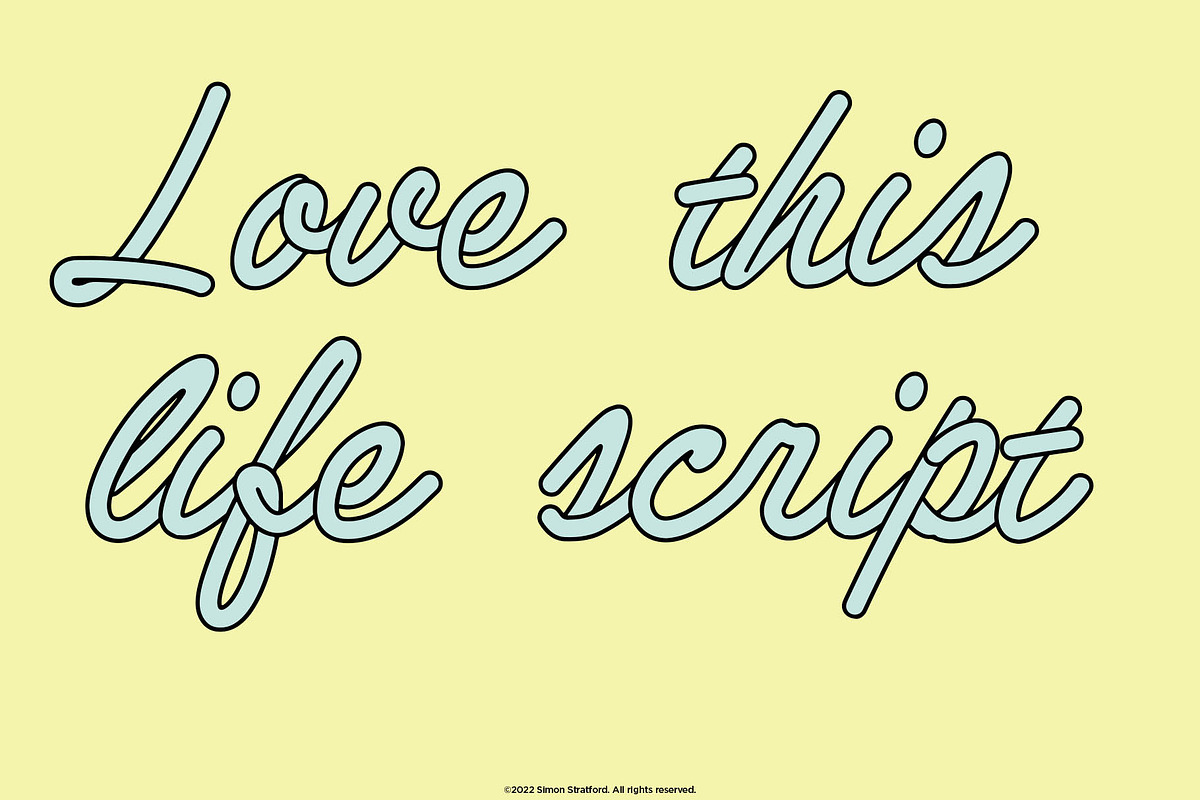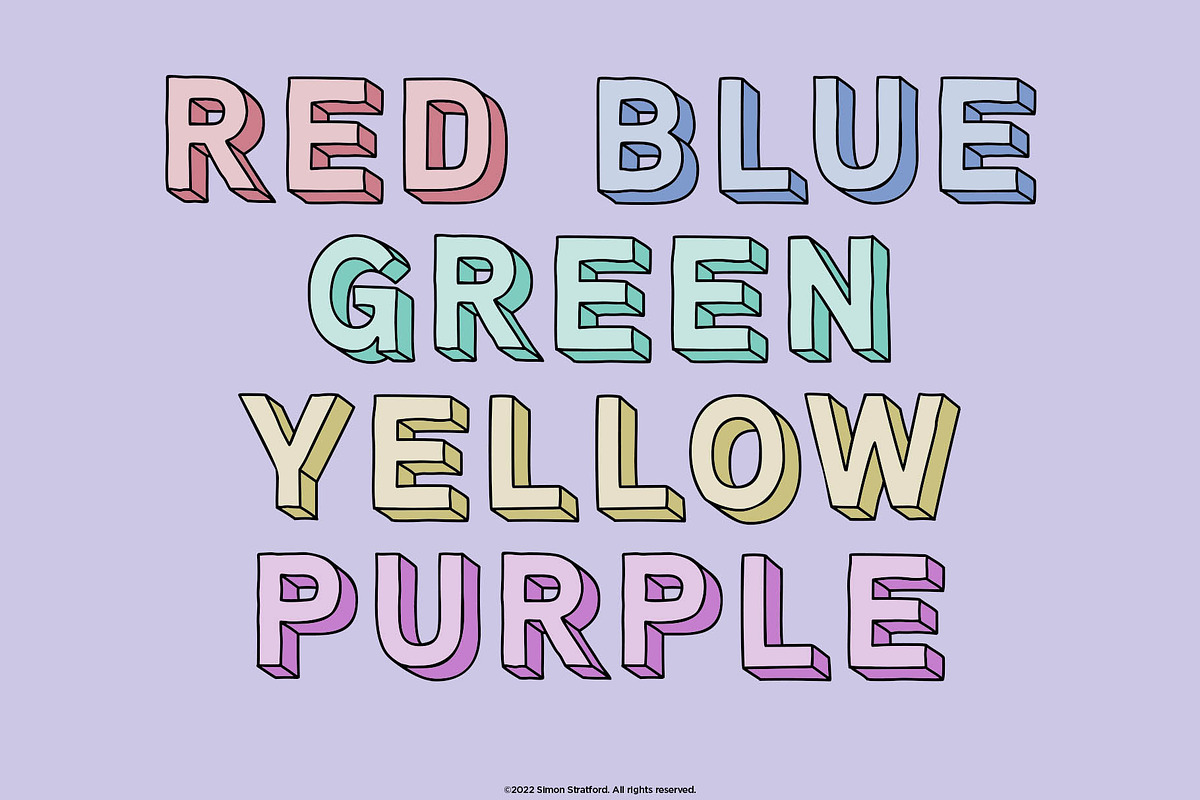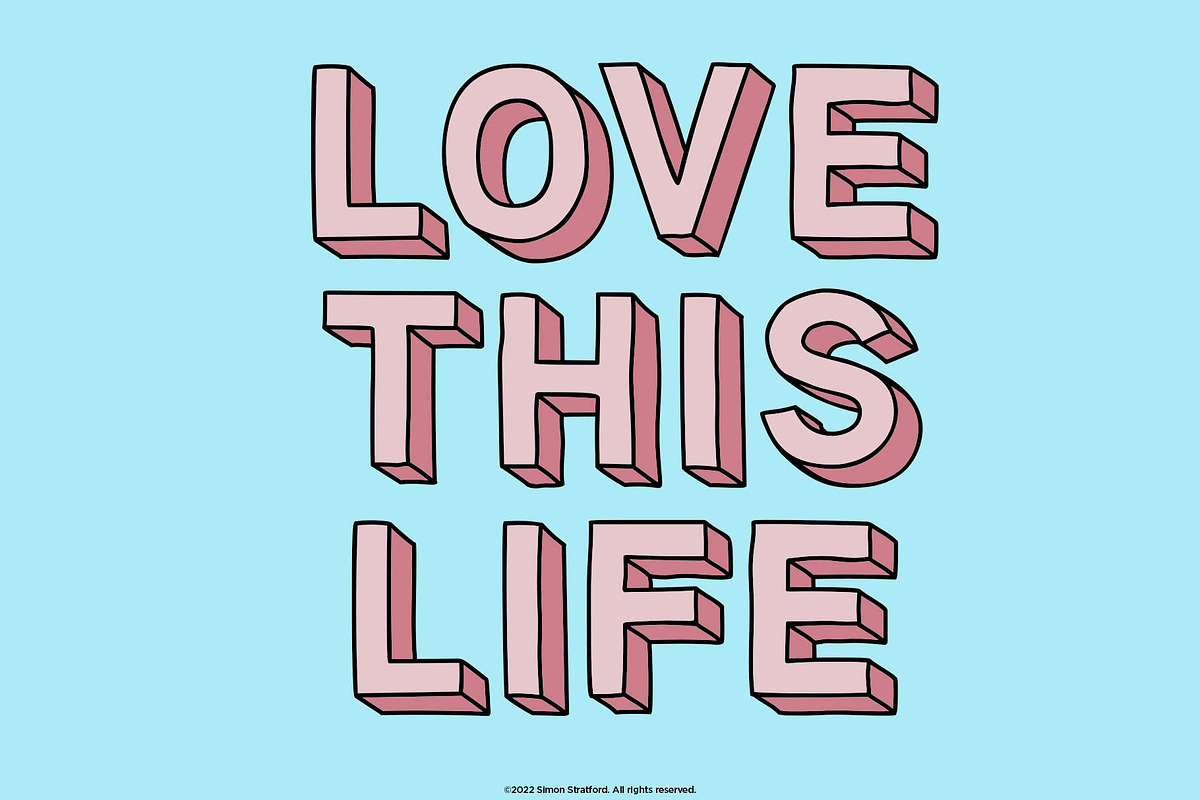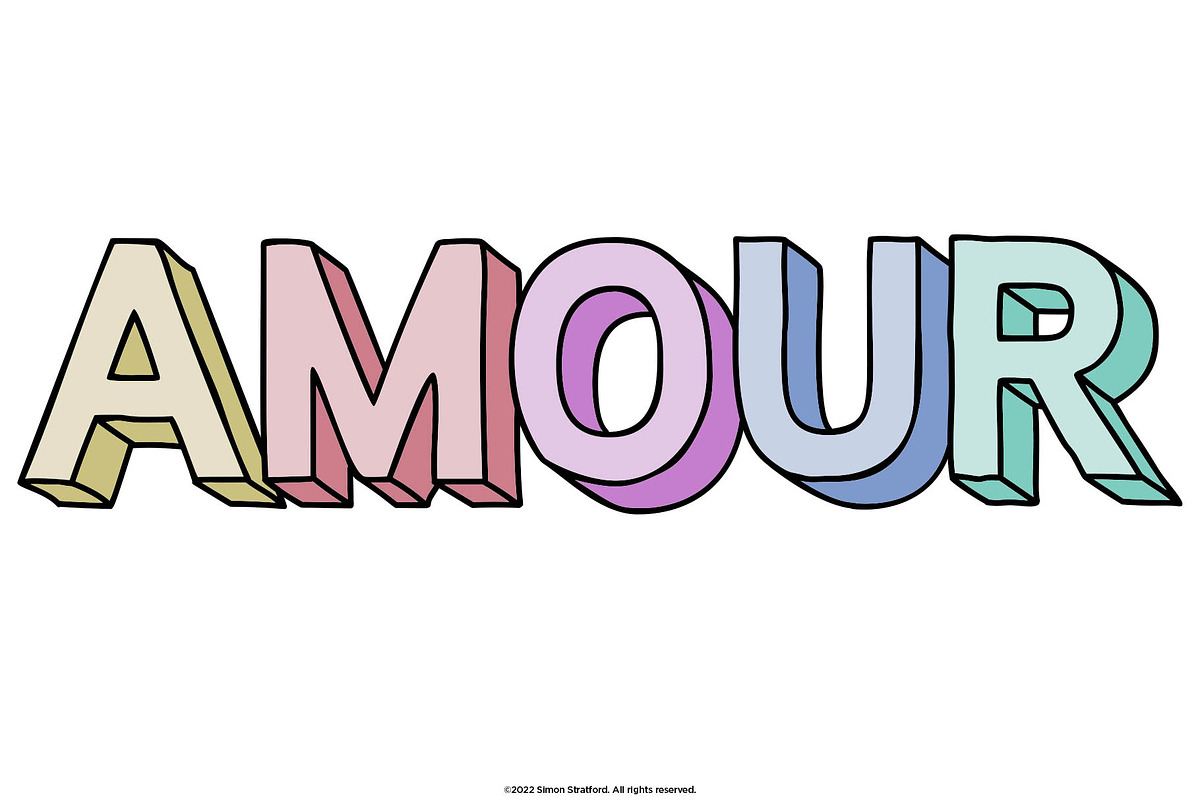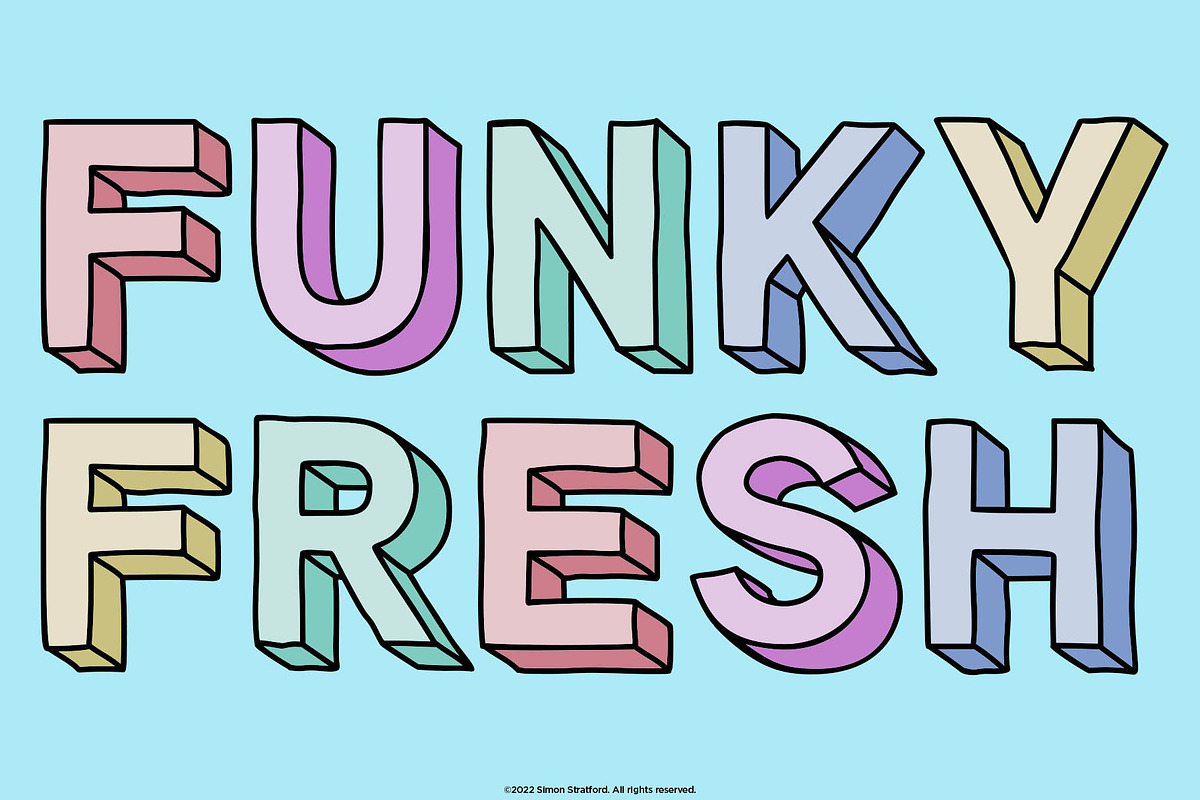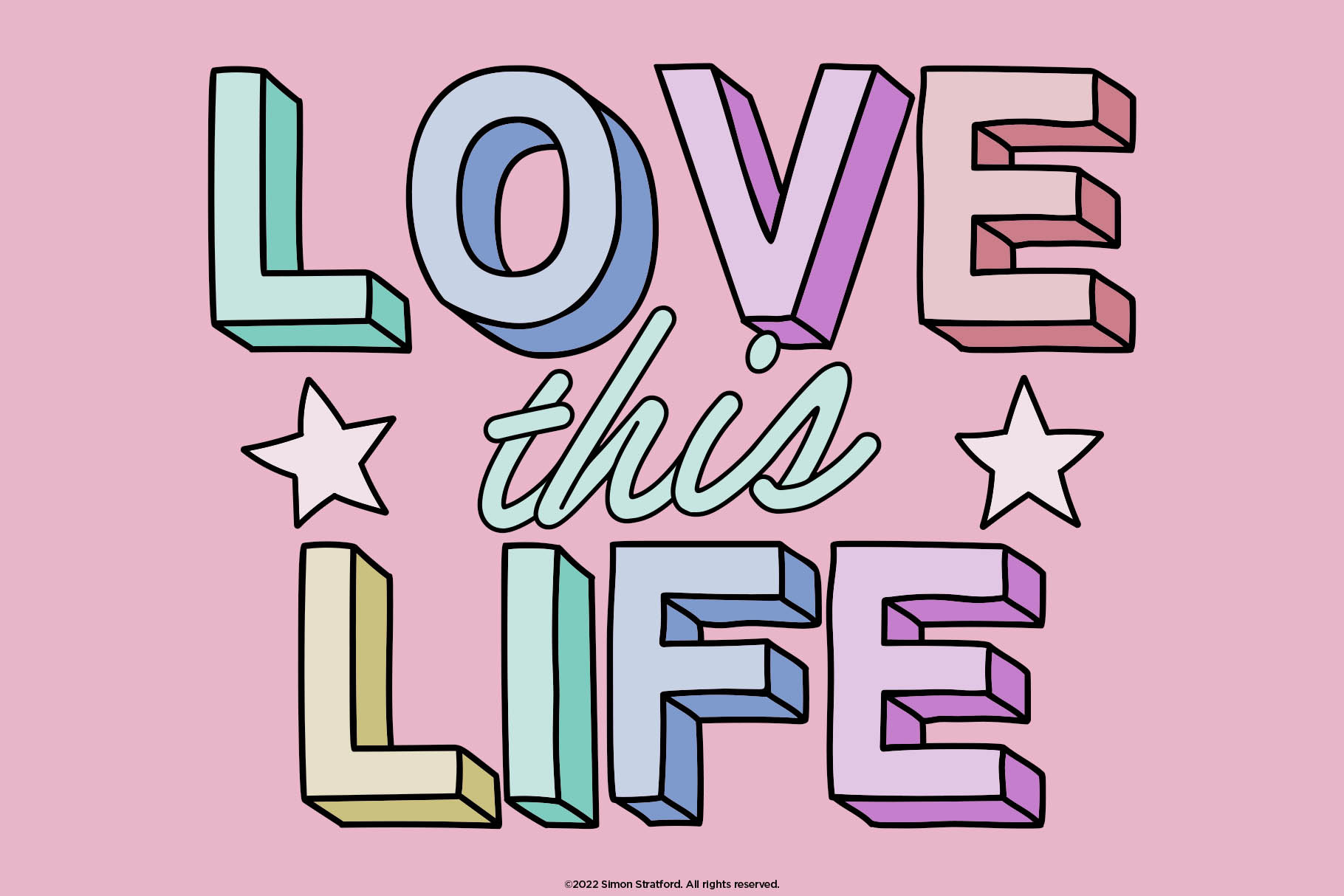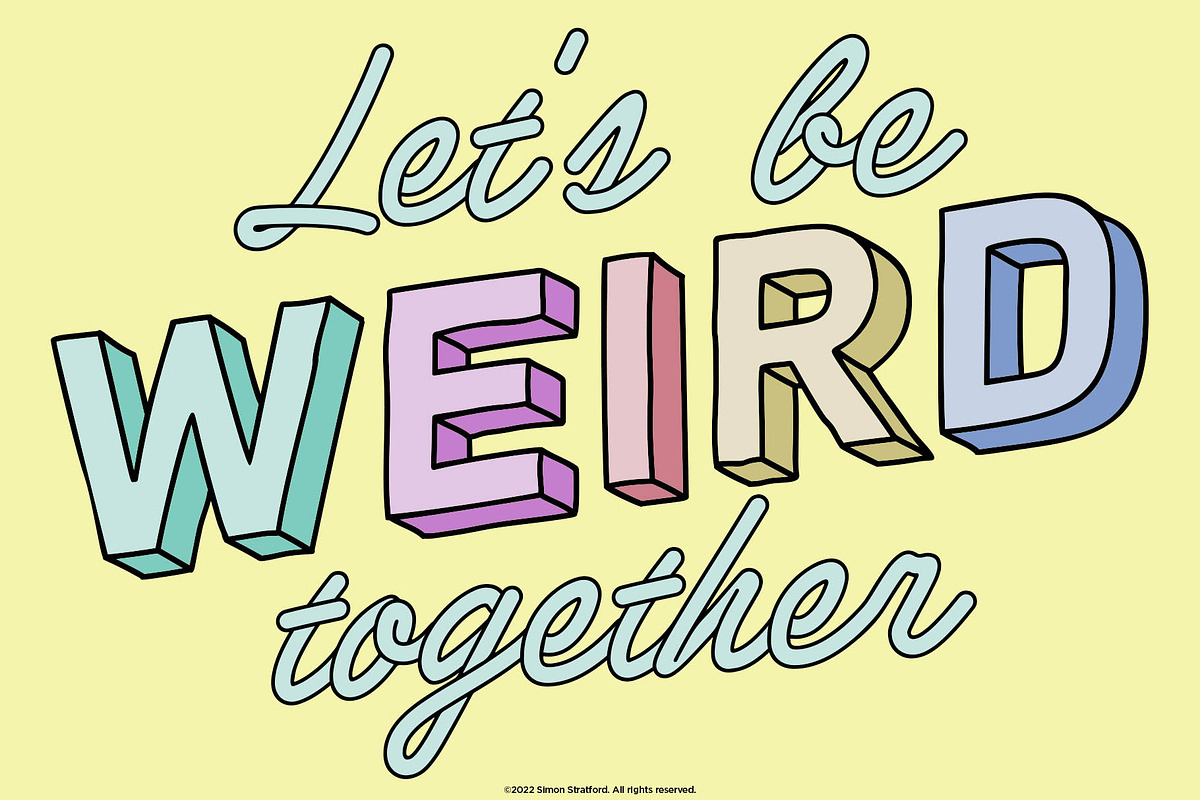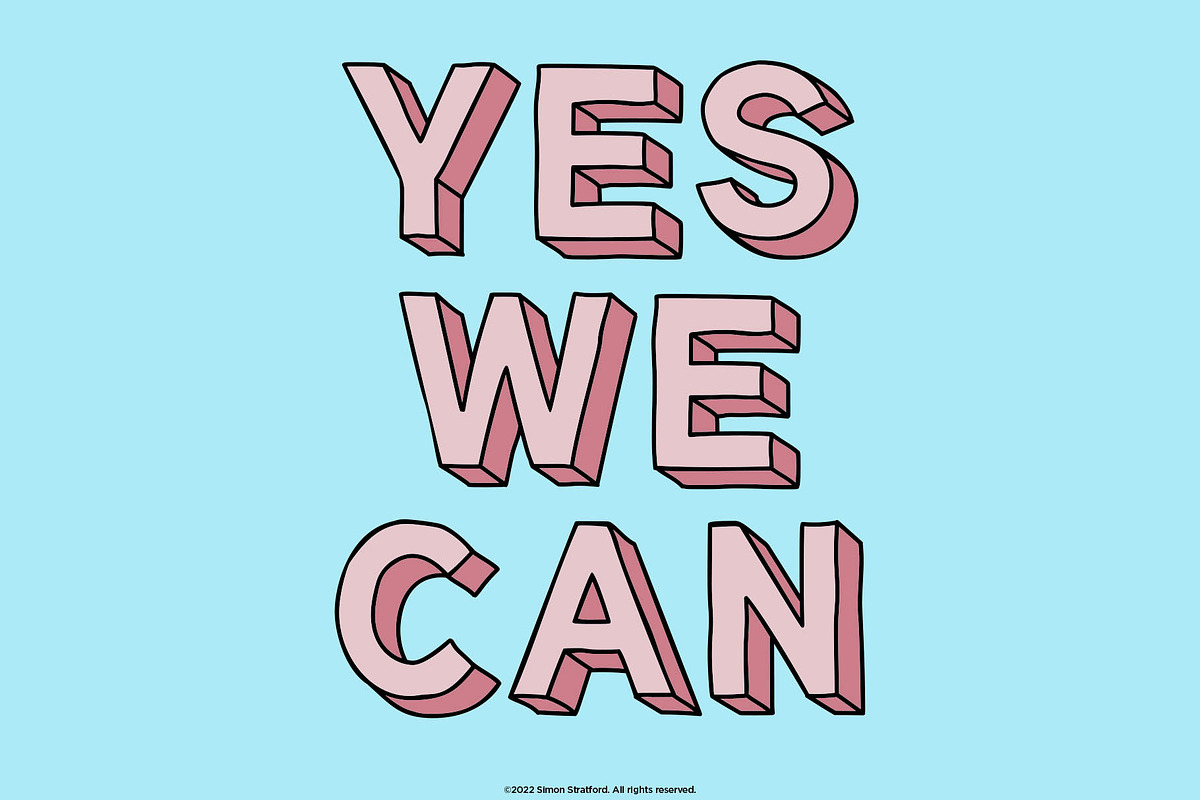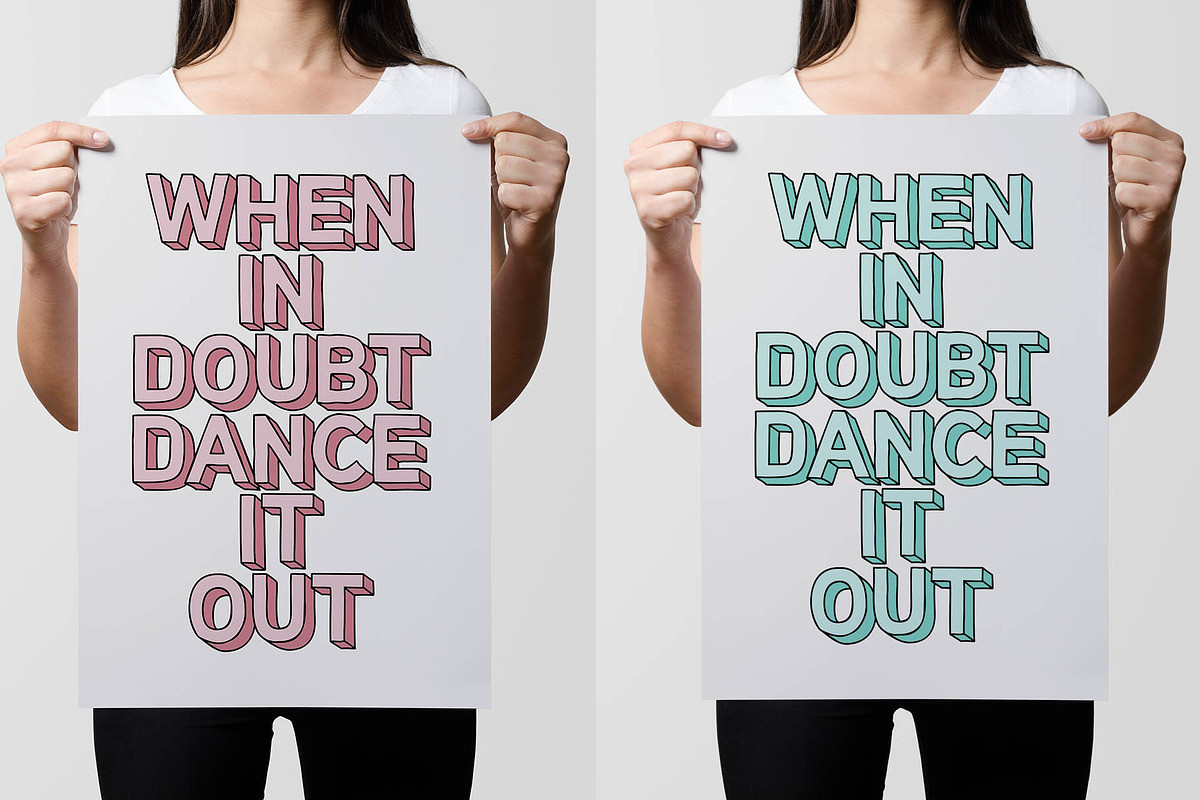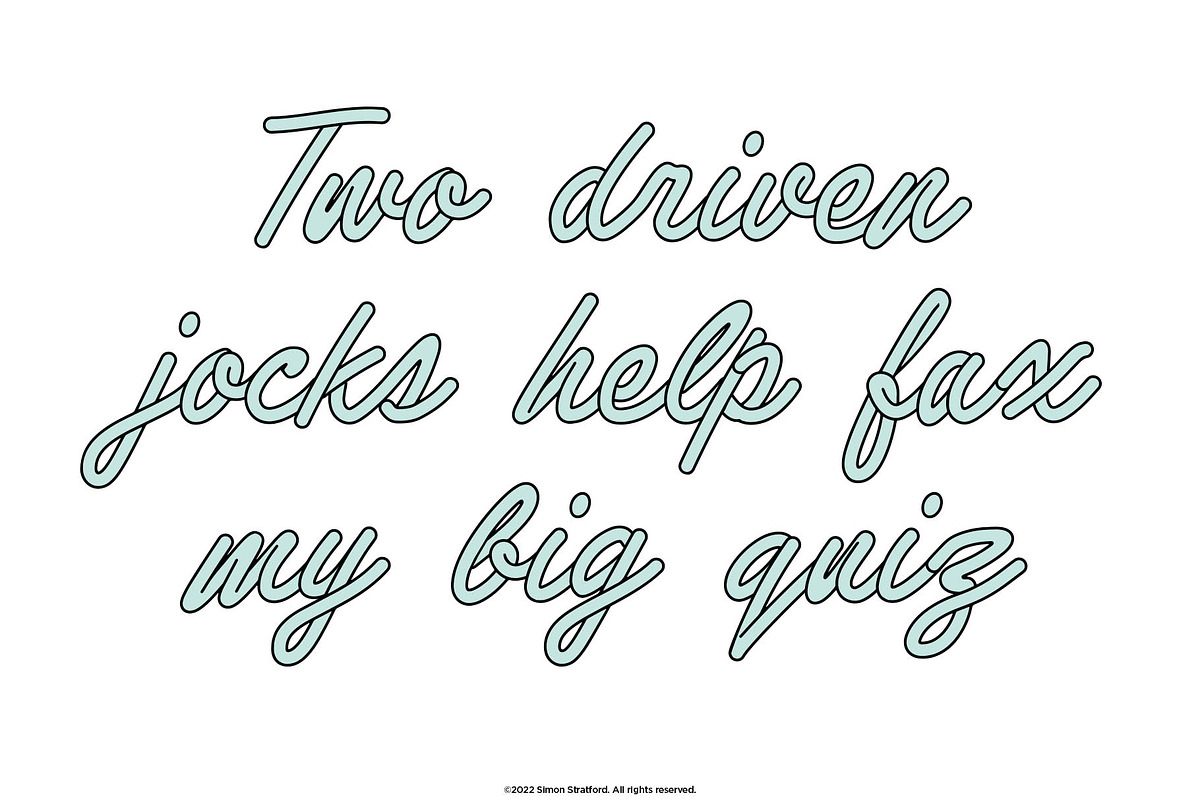
Display font Love This Life
Love this life is a strange-looking OpenType SVG font overflowing with energy and colour. It really attracts attention to its slightly shaky gutsy outlines—giving it a lovely cheeky appearance.
Combine the main font with the script font, and you have the ideal trendy font duo—use them together or just on their own.
Love this life's main typeface features five different colours Red Green, Yellow, Blue and Purple. You can mix and match the colours to get an awesome colour effect.
All the colour is built into the typeface, so you don't need to mess about with paths and fill colours.
If this font were a celebrity, it would be more Cyndi Lauper than Courteney Cox—it really shows its true colours.
Love this life's lively appearance would be excellent for large headlines, posters, birthday cards, t-shirts, branding and your social media posts.